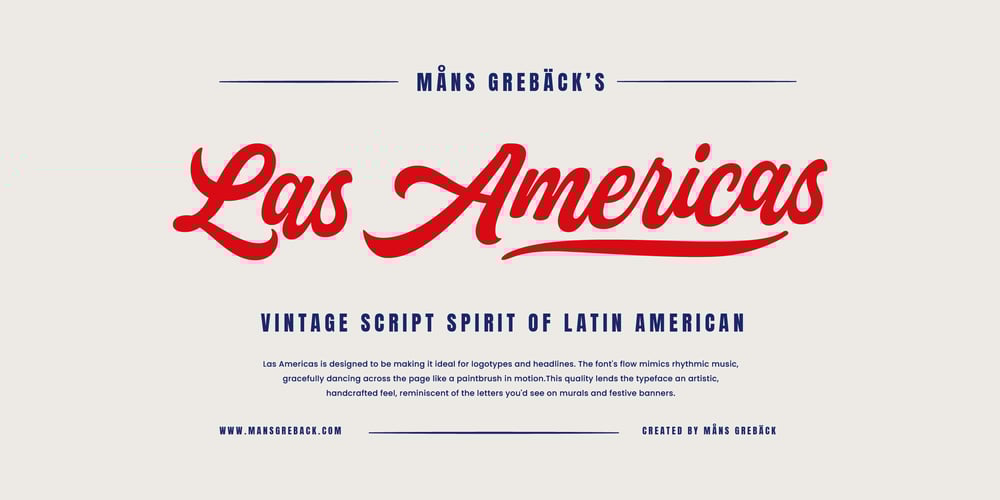
Las Americas Font Family was designed by Måns Grebäck and published by Mans Greback. Las Americas contains 4 styles and family package options. Las Americas is a bold script typeface that embodies the vibrant spirit of Latin American streets. Las Americas is designed to be the centerpiece of any visual communication. Its heavy, bold strokes convey a sense of confidence and impact, making it ideal for logotypes and headlines. The font’s flow mimics rhythmic music, gracefully dancing across the page like a paintbrush in motion. This quality lends the typeface an artistic, handcrafted feel, reminiscent of the letters you’d see on murals and festive banners. Use one or multiple underscores _ anywhere in the word to create a swash. Examples: Amer_icana Oce___anic The font is built with advanced OpenType functionality and guaranteed top-notch quality, containing stylistic and contextual alternates, ligatures and more automatic and manual features; all to give you full control and customizability. It has extensive lingual support, covering all Latin-based languages, from North Europe to South Africa, from America to South-East Asia. It contains all characters and symbols you’ll ever need, including all punctuation and numbers. Designed by Mans Greback, ‘Las Americas’ is more than a font; it’s a celebration of culture, art, and music. Its robust yet fluid design makes it an excellent choice for creative projects that require a touch of the unique and a nod to the culturally rich and diverse Latin American continent.